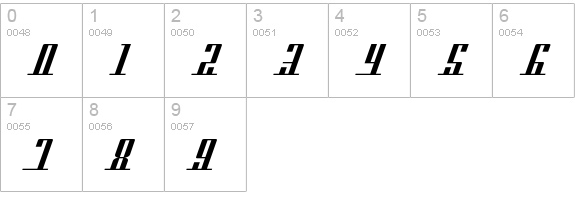
SF Americana Dreams Extended Font Details
SF Americana Dreams Extended is a distinctive, extended-width variant in the SF typeface family \xE2\x80\x94 well suited to design and typography projects.
SF Americana Dreams Extended is a captivating and versatile font that effortlessly blends the essence of classic Americana with a futuristic twist. With its elongated letterforms and bold strokes, this font exudes an air of confidence and boldness that is sure to make a statement. Perfect for a wide range of creative projects, SF Americana Dreams Extended is ideal for branding, packaging, headlines, posters, and more. Its distinctive style adds a touch of nostalgia while still maintaining a contemporary edge, making it a perfect choice for those seeking to evoke a sense of timeless Americana. What sets SF Americana Dreams Extended apart is not only its stunning design but also the fact that it is available for free. Yes, you read that right – this incredible font is freely available to download at FontsMarket.com. Now, you can bring your creative visions to life without breaking the bank. Whether you're designing a vintage-inspired logo for a local brewery or creating eye-catching signage for a retro-themed event, SF Americana Dreams Extended is the font that will elevate your work to new heights. Its versatility and charm will captivate your audience, leaving a lasting impression that is both nostalgic and modern. So, why wait? Download SF Americana Dreams Extended today, and let your imagination run wild. With its unique blend of classic Americana and contemporary design, this font is sure to become a go-to choice for all your creative endeavors. And the best part? It's free! Get your hands on SF Americana Dreams Extended now, exclusively at FontsMarket.com.